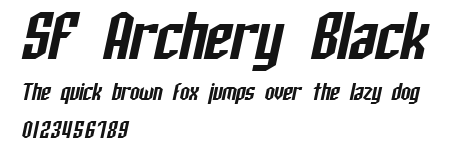
• Font Name: SF Archery Black
• Designer: ShyFonts Type Foundry
About SF Archery Black.ttf
SF Archery Black.ttf is a modern, elegant sans-serif font designed for ultimate readability and visual harmony. Perfect for branding, headlines, web design, and print materials.